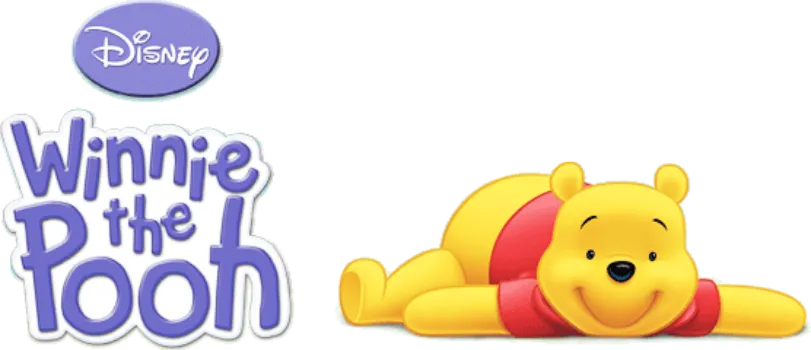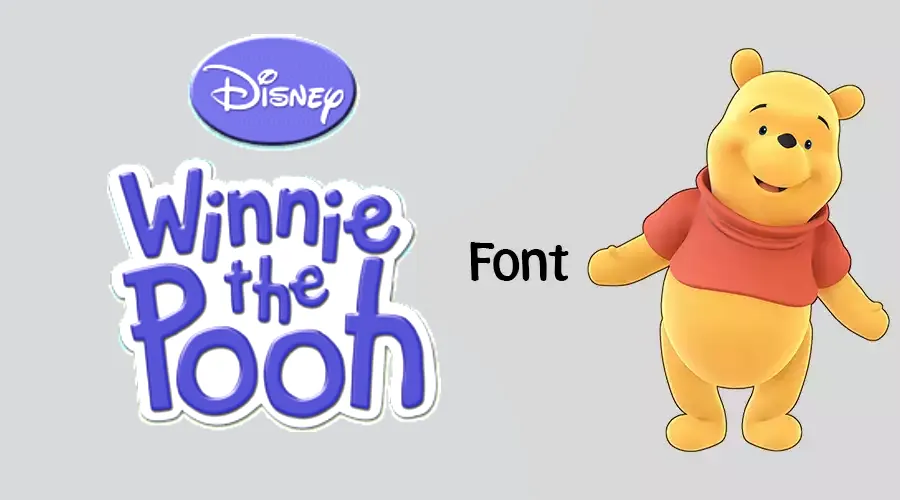
Winnie the Pooh Font Generator
Winnie the Pooh is a fictional character created by English author A. A. Milne and English illustrator E. H. Shepard.
Winnie the Pooh is a teddy bear who lives in the Hundred Acre Wood with his friends Piglet, Tigger, Eeyore, and Christopher Robin. The stories of Winnie the Pooh have been adapted into books, films, television shows, and merchandise by various companies, including Disney.
The logo of Winnie the Pooh is very similar to Piglet font.
There is another font called Pooh which also similar kind that mirrors the logo created by A. A. Milne.
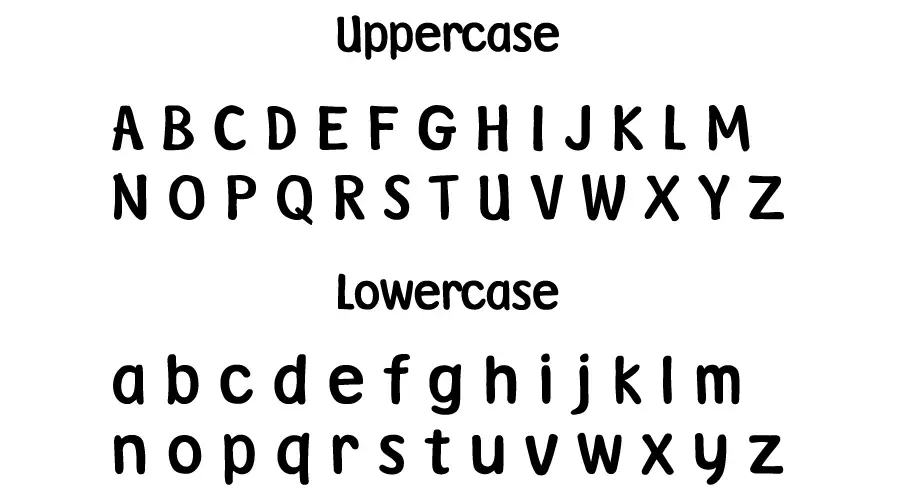
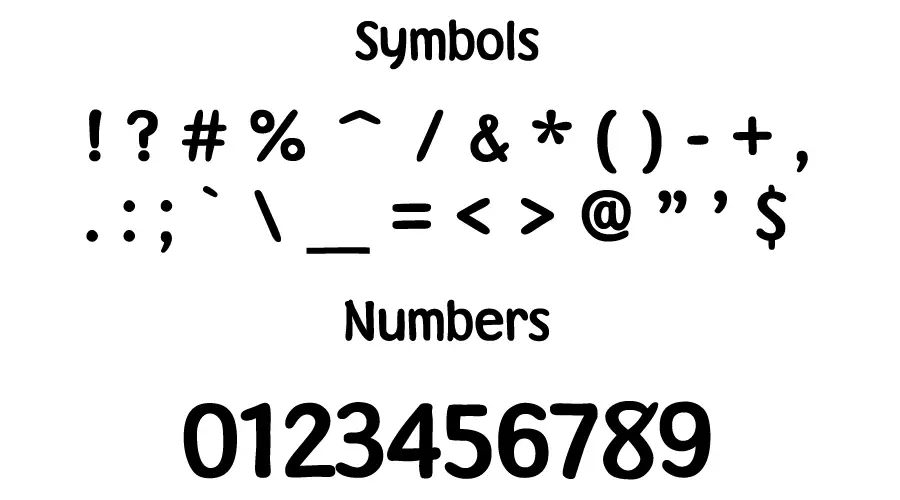
There are also some other fonts that are inspired from the Winnie the Pooh logo, such as:
Winnie Silhouettes: A font that features silhouettes of Pooh and his friends in various poses.
New Pooh: A font that represents Winnie the Pooh characters.
LMS Peek-A-Pooh: A font that has cute and playful letters with Pooh’s face peeking out of them.
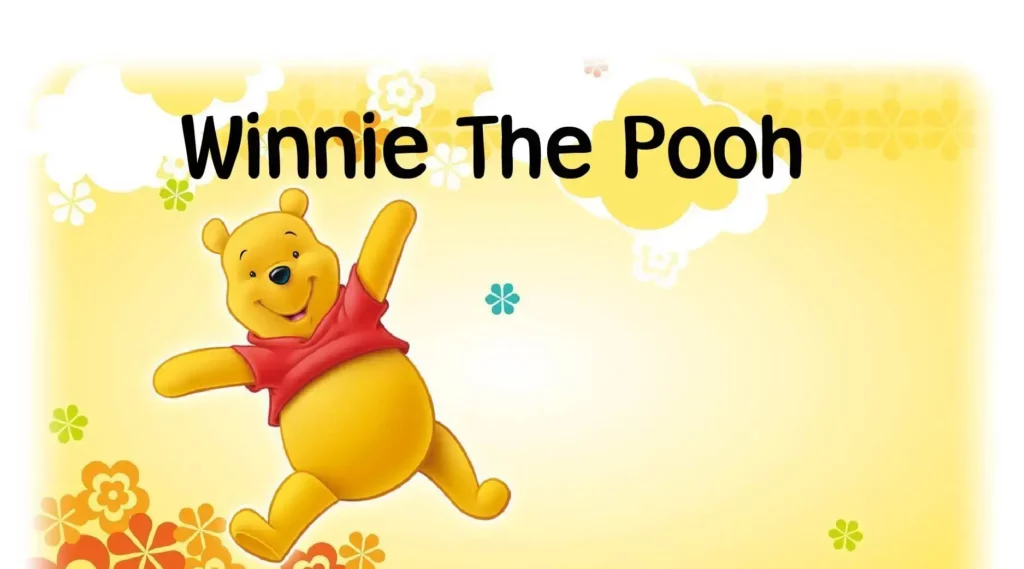
In conclusion, Winnie the Pooh is a beloved character that has inspired many creative works, including fonts. The Pooh font is the most faithful to the original logo, but there are also other fonts that capture the essence of Pooh and his friends. You can use these fonts to add some fun and whimsy to your projects.